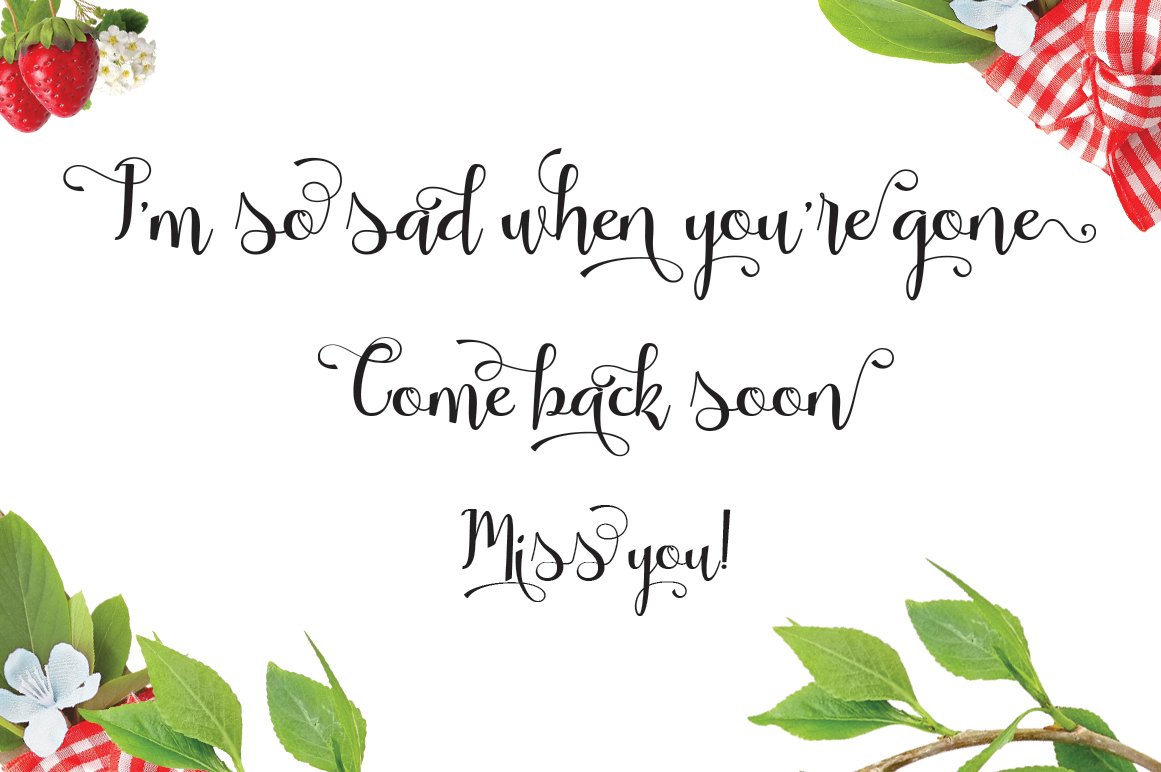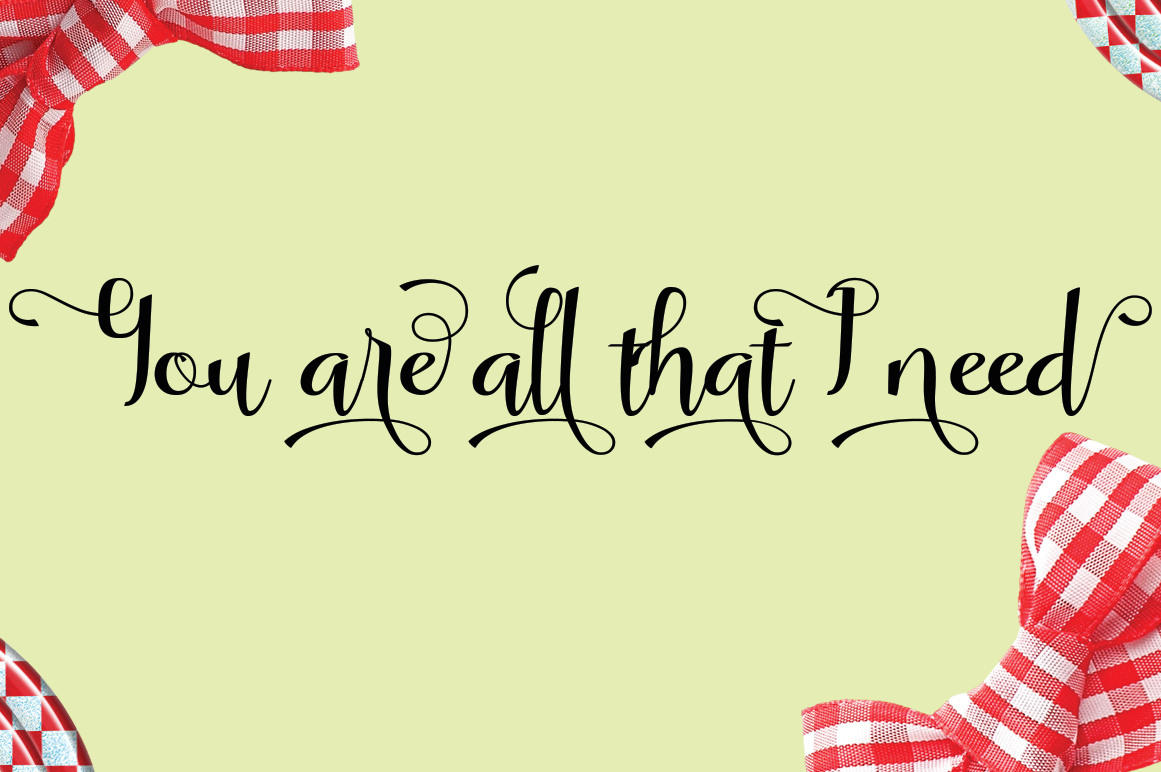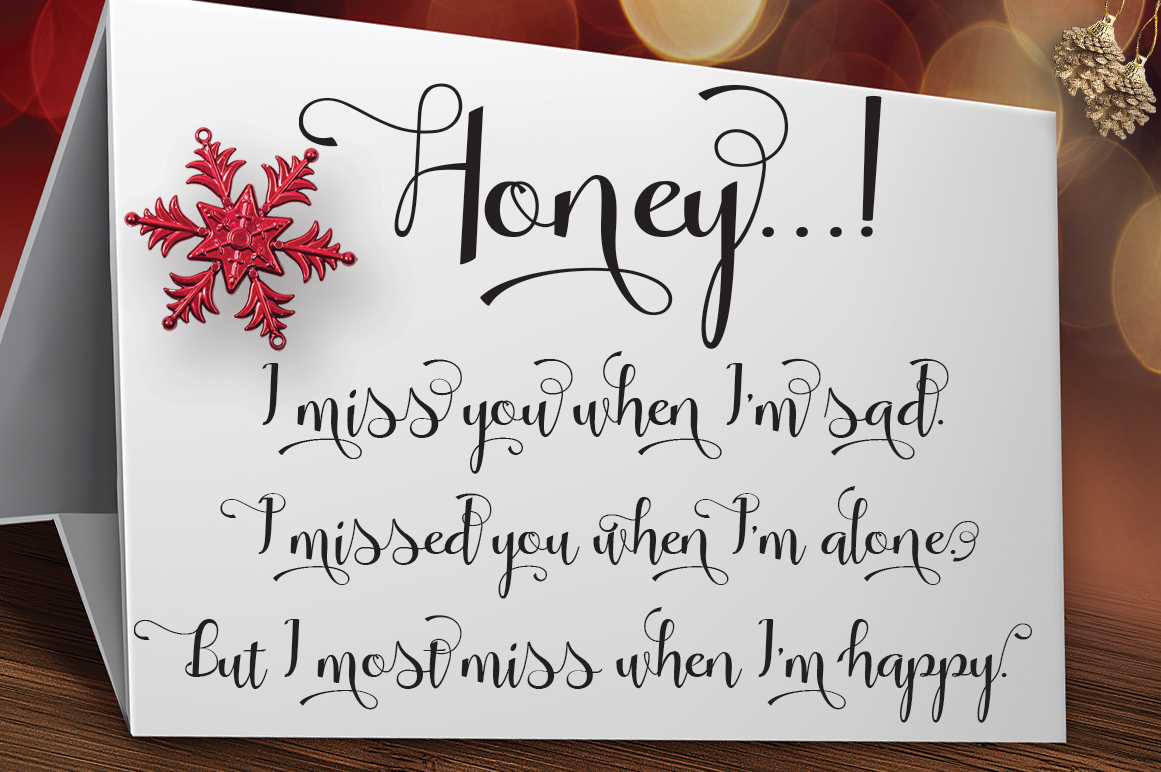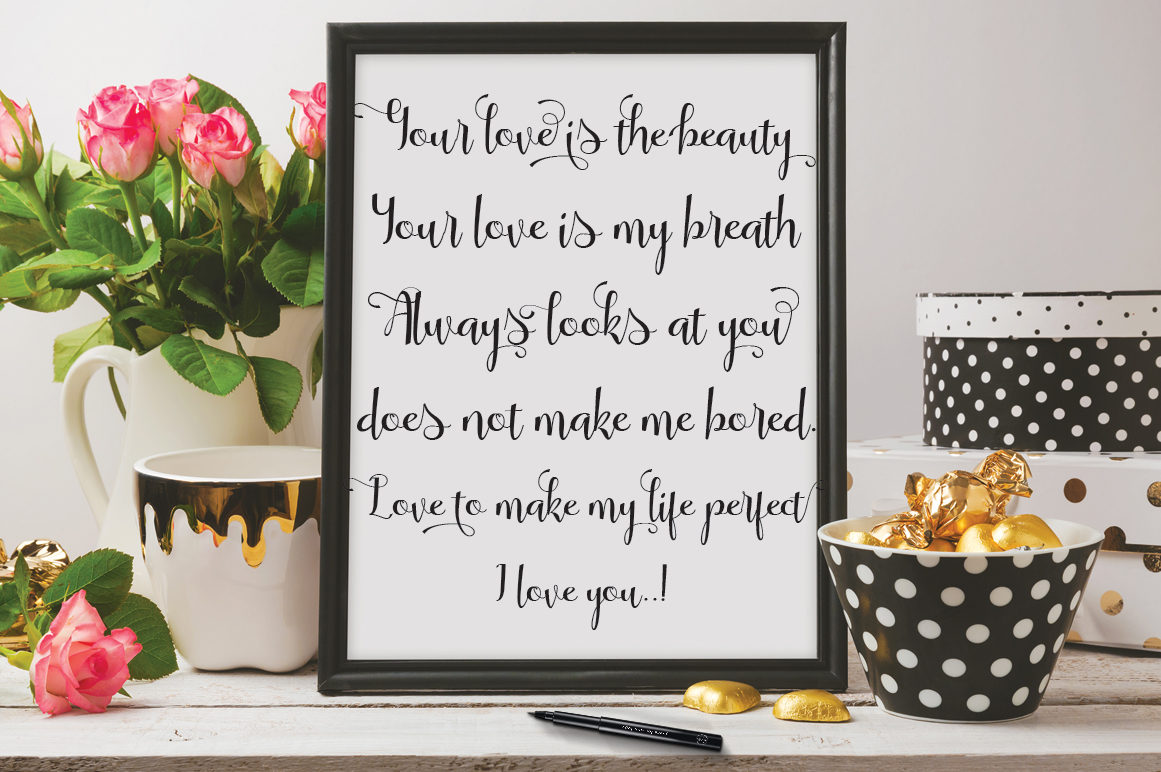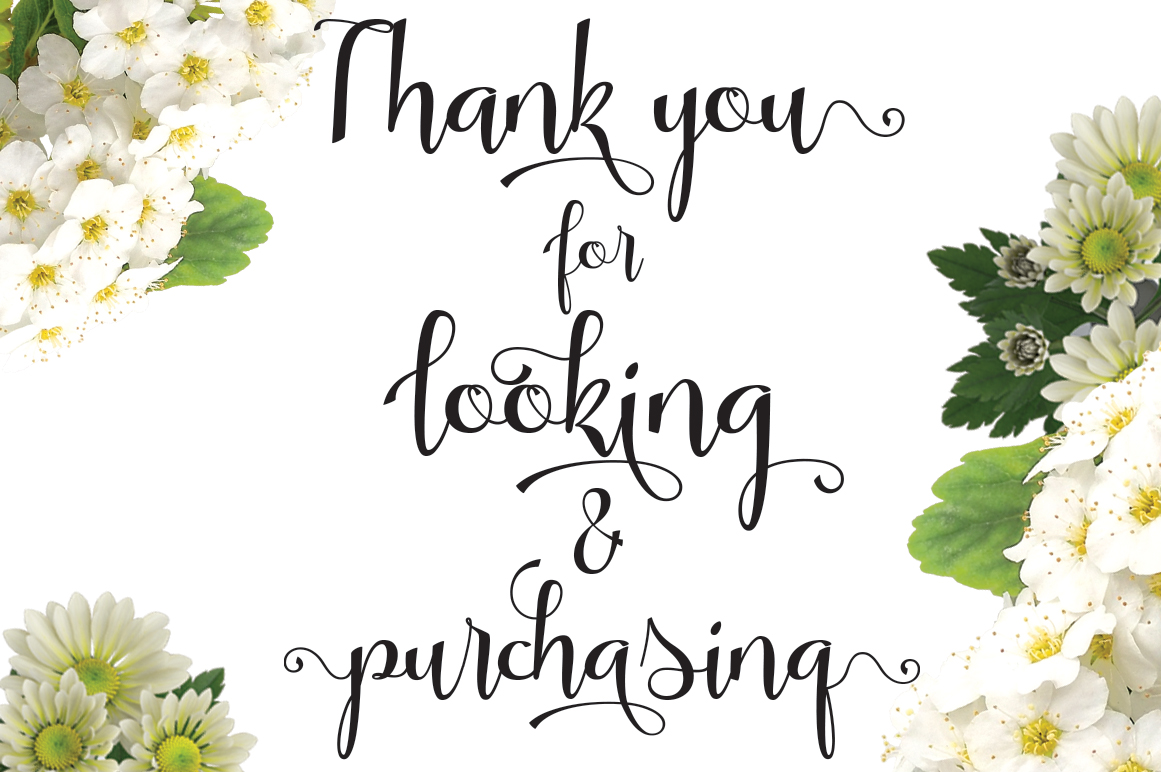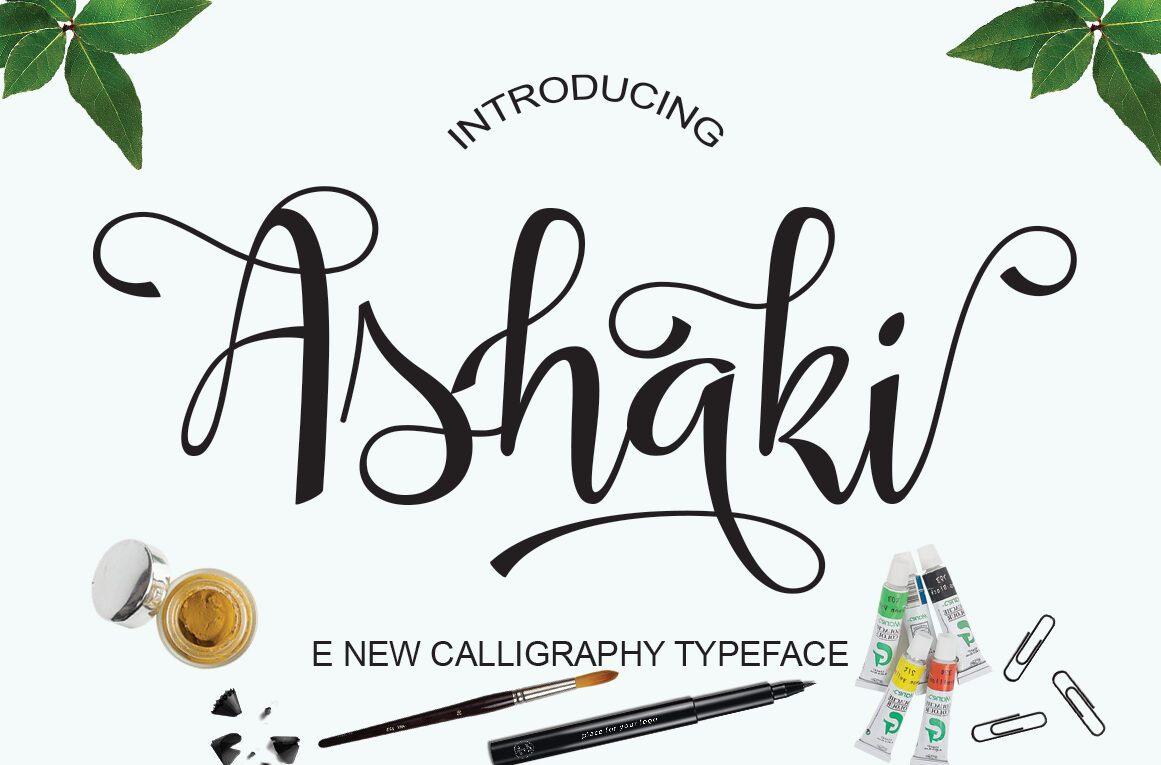
Introducing Asyaki Font: A Stunning Handwritten Font by Naqsya.Co.
Are you tired of using the same old fonts in your designs? Look no further! Asyaki Font is a beautiful, handmade font created by Naqsya.Co. that is sure to add a personal touch to your projects. In this article, we’ll dive into the world of Asyaki Font, exploring its features, benefits, and uses.
What is Asyaki Font?
Asyaki Font is a stunning handwritten font designed by Naqsya.Co., a team of talented designers passionate about creating unique and creative typography. This font is perfect for crafters, designers, and anyone looking to add a touch of elegance and sophistication to their work.
Features of Asyaki Font
- Handwritten with love: Asyaki Font is carefully crafted by hand, giving it a personal and distinctive feel.
- Unique character set: Each letter, number, and symbol is designed to be visually appealing and easy to read.
- Multilingual support: Asyaki Font supports multiple languages, making it perfect for global designs.
Benefits of Using Asyaki Font
So, why choose Asyaki Font for your designs? Here are just a few benefits:
- Adds a personal touch: Asyaki Font’s handmade nature gives your designs a personal and human feel.
- Stand out from the crowd: With its unique character set, Asyaki Font is sure to make your designs stand out.
- Perfect for branding: Asyaki Font’s elegant and sophisticated feel makes it perfect for branding and logo design.
- Versatile: Asyaki Font can be used for a wide range of designs, from digital to print.
Uses of Asyaki Font
Asyaki Font is perfect for a variety of design projects, including:
- Logo design: Create a unique and memorable logo with Asyaki Font.
- Branding: Use Asyaki Font to add a touch of elegance to your brand’s typography.
- Digital design: Asyaki Font is perfect for digital designs, such as social media graphics, blog posts, and more.
- Print design: Use Asyaki Font for print designs, such as business cards, brochures, and posters.
- Crafting: Asyaki Font is perfect for crafters, makers, and DIY enthusiasts looking to add a personal touch to their projects.
Tips for Using Asyaki Font
Here are a few tips for getting the most out of Asyaki Font:
- Experiment with colors: Asyaki Font looks great in a variety of colors, so don’t be afraid to experiment.
- Pair with other fonts: Try pairing Asyaki Font with other fonts to create a unique and interesting typography combination.
- Use it sparingly: Asyaki Font is perfect for adding a touch of elegance to your designs, but use it sparingly to avoid overwhelming the design.